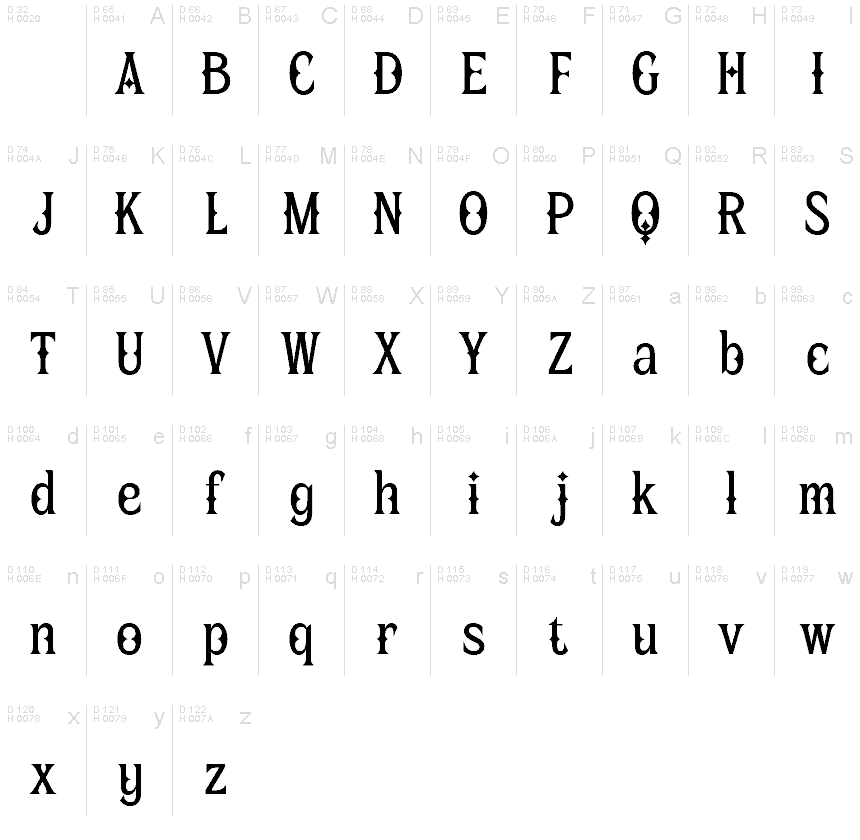
CS Brizo Regular Demo
CS Brizo font by Craft Supply Co. captures creativity in a unique design concept, formed around the design ideas of various rare serif styles. Following incomplete strokes and glyphs with irregular thickness, it creates a feel of history that dominates the font’s sophisticated look and elegant characters.
CS Brizo has contemporary applications in branding and logos of perfume brands, exclusive jewelry collections, and shoe stores. But it’s also suitable for smaller projects including typography artwork designs, printables, cards, wrapping paper patterns or books about prominent figures throughout history and art forms. Grab this free new ornamental typeface for your personal projects!